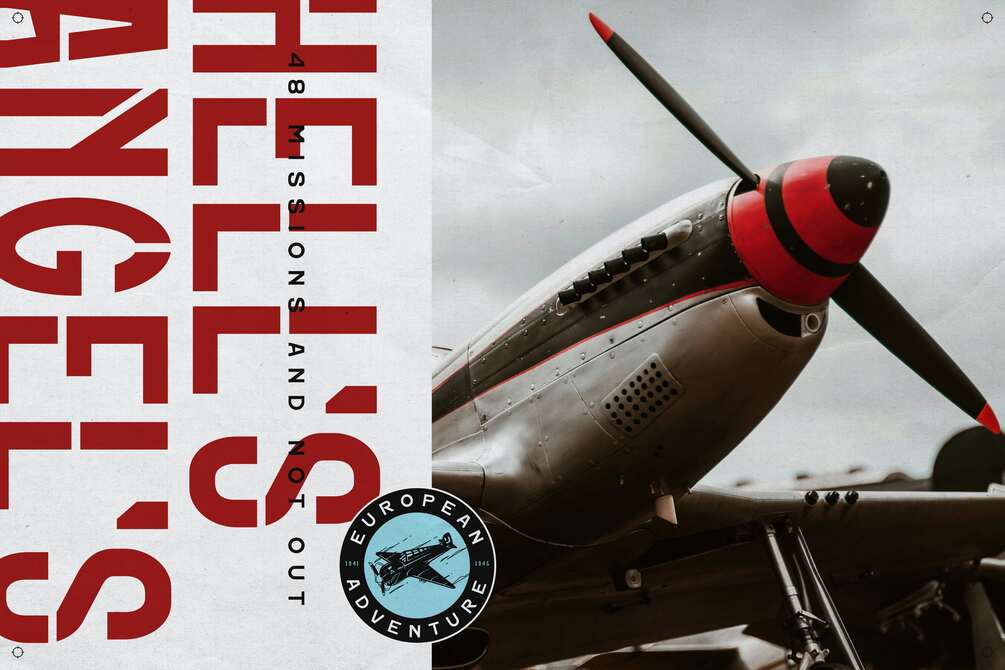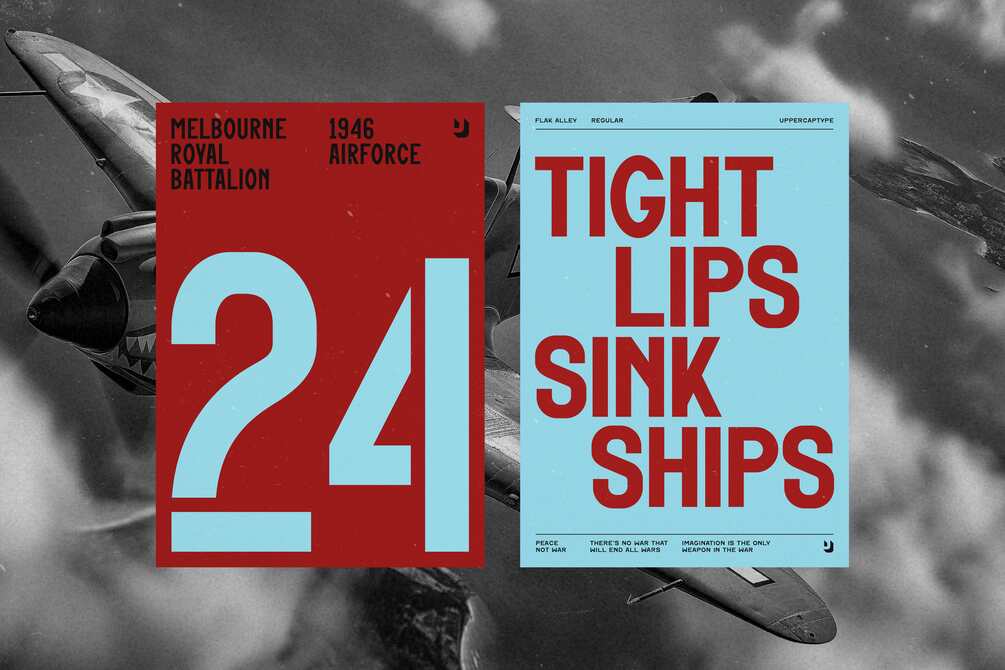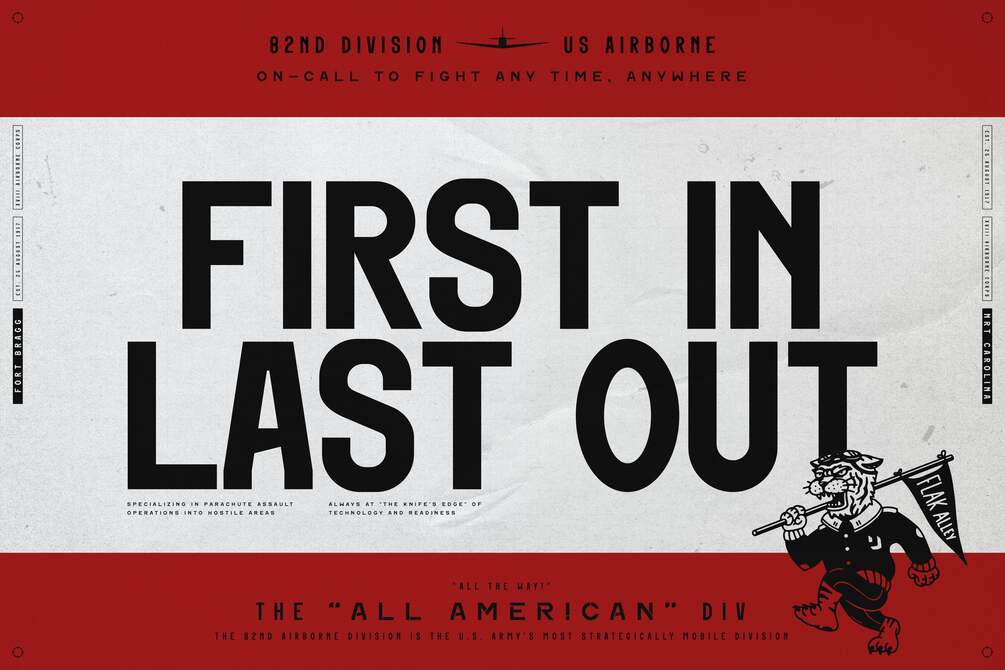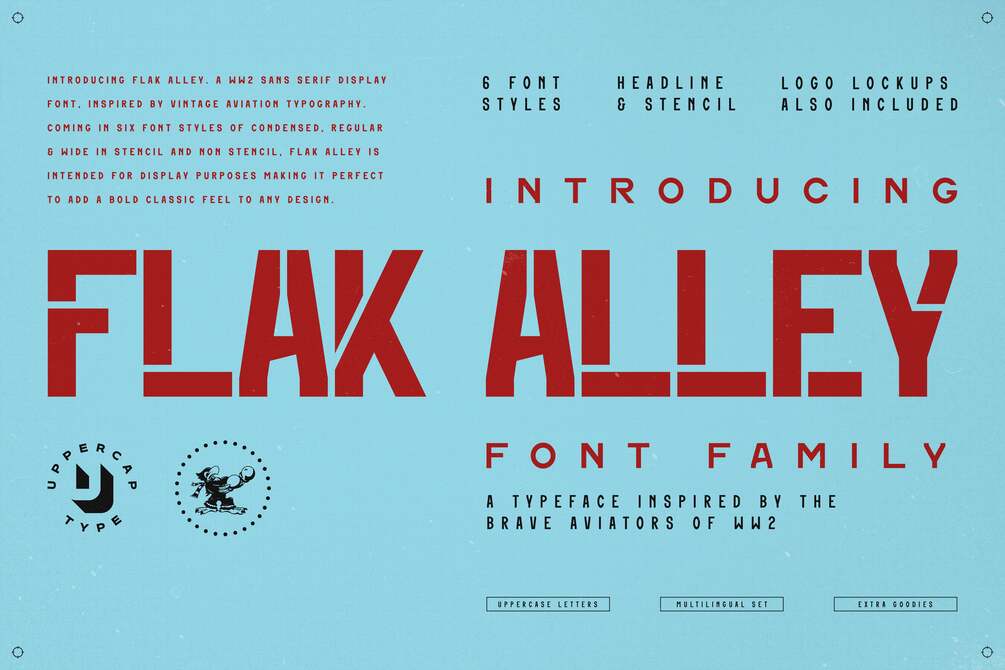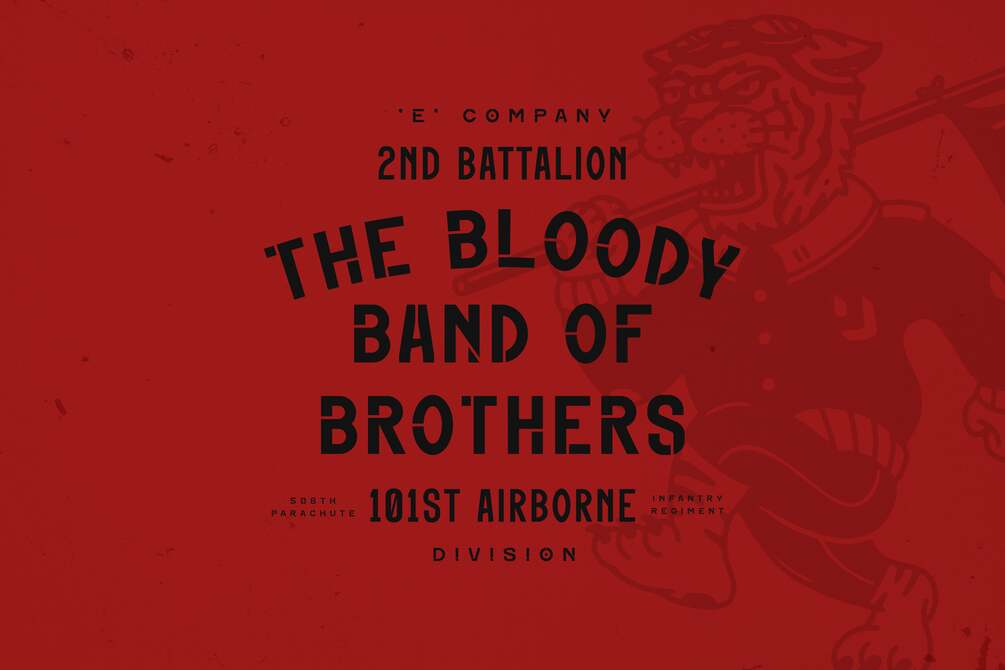
Flak Alley
UppercapType
Introducing Flak Alley!
A World War 2 sans serif display font, inspired by vintage aviation typography. Coming in six font styles, it is intended for display purposes making it perfect to add a bold classic feel to any design.
- 6 Font Styles (Condensed, Regular, Wide, Condensed Stencil, Regular Stencil, Wide Stencil)
- 5 character illustrations
- 4 Badge/Logo Lockups
- Multilingual Support
- Punctuation
- Numerals
- Capital Letters